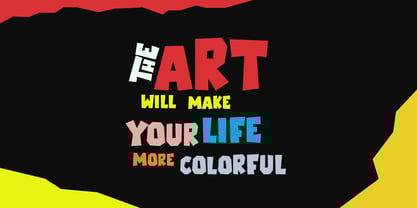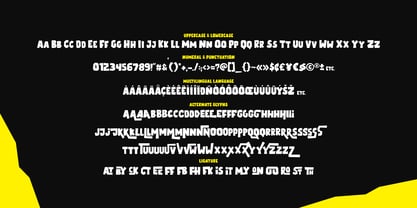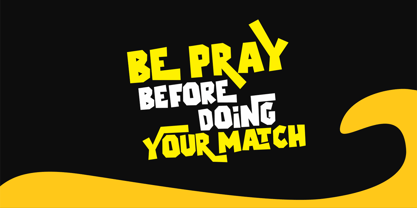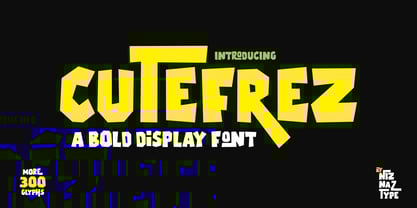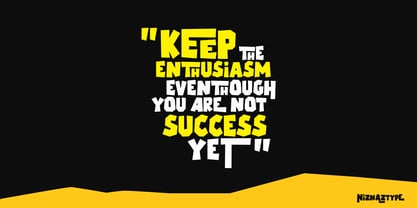
Cutefrez
by Niznaztype
The Cutefrez Font Family was designed by Muhammad Nazarudin and published by Niznaztype. Cutefrez contains 1 styles. More about this family
Introducing a bold display typeface. I cal it as
Cutefrez. Cutefrez have a unique shape style.
Straight lines and boxes shape. The theme of this
font like kids, funny, simple and cute. Looks like to
make happy characters in your design.
Cutefrez is unique style in each glyph. This font
suitable for cover, book, kid concept, poster, t-shirt,
mural painting and others.
Cutefrez consist of :
- Uppercase and lowercase
- Numeral and punctuation
- Alternate glyph
- Multilingual language
- Ligature
Designers: Muhammad Nazarudin
Foundry: Niznaztype